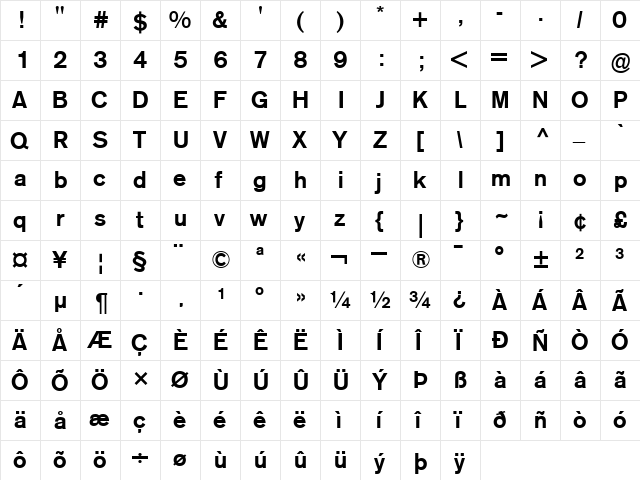
AGOldFace-Medium Medium
Design Context for AGOldFace-Medium Typeface
AGOldFace-Medium offers clean, dependable letterforms without strong stylistic allegiance, making it a practical choice for designers who need flexibility.
Pro Tip: Use AGOldFace-Medium in both headline and body roles to test its range before committing to a single application.